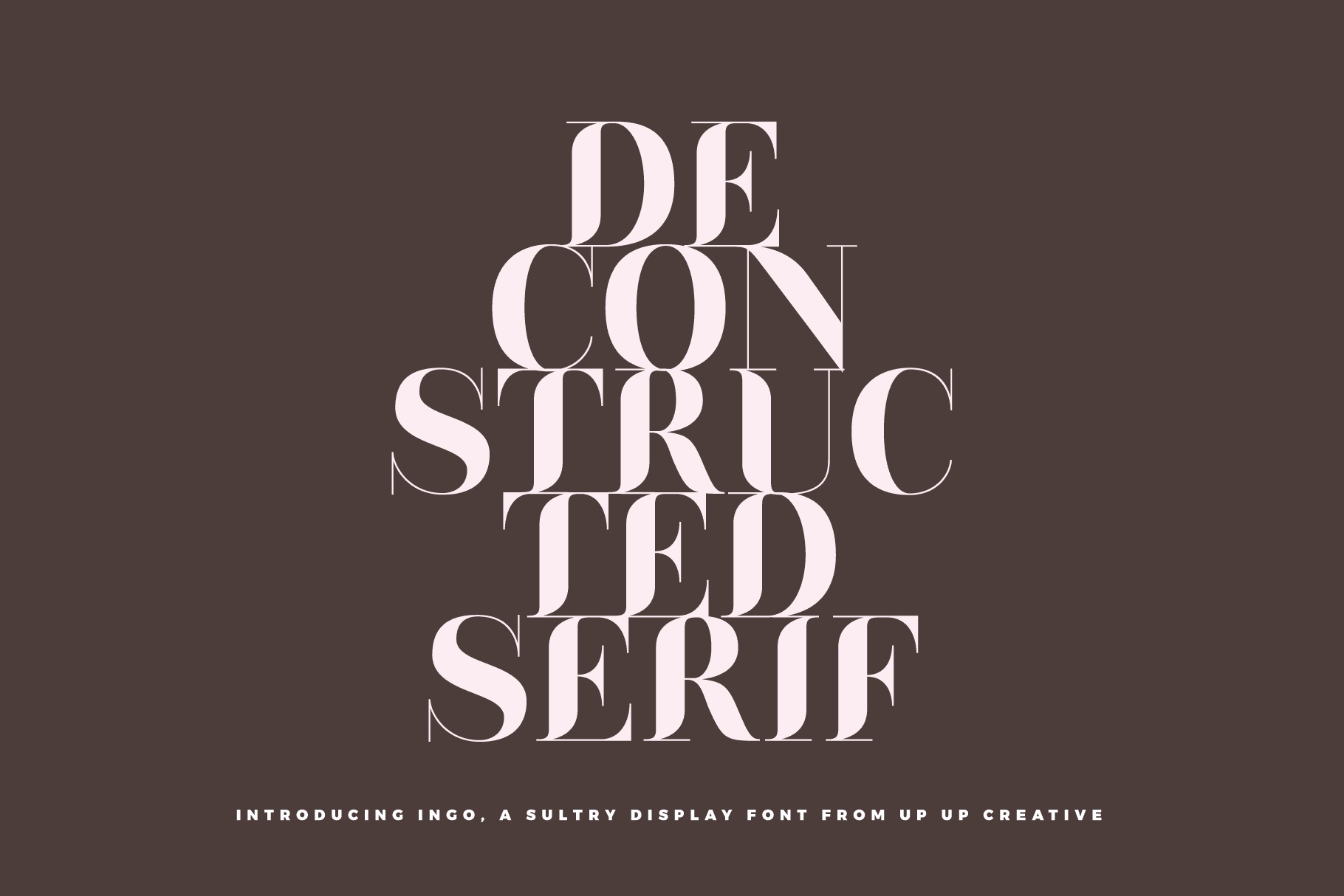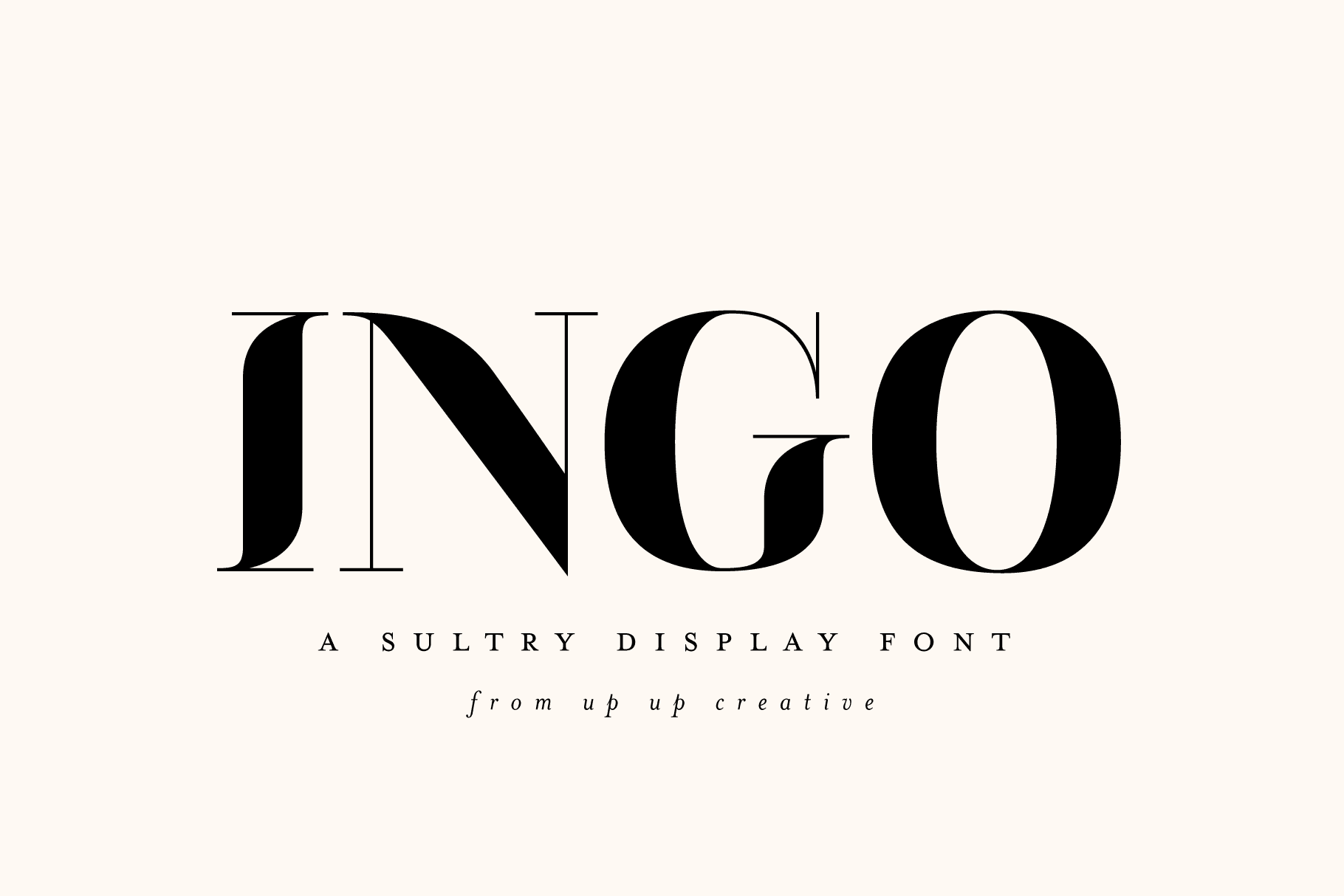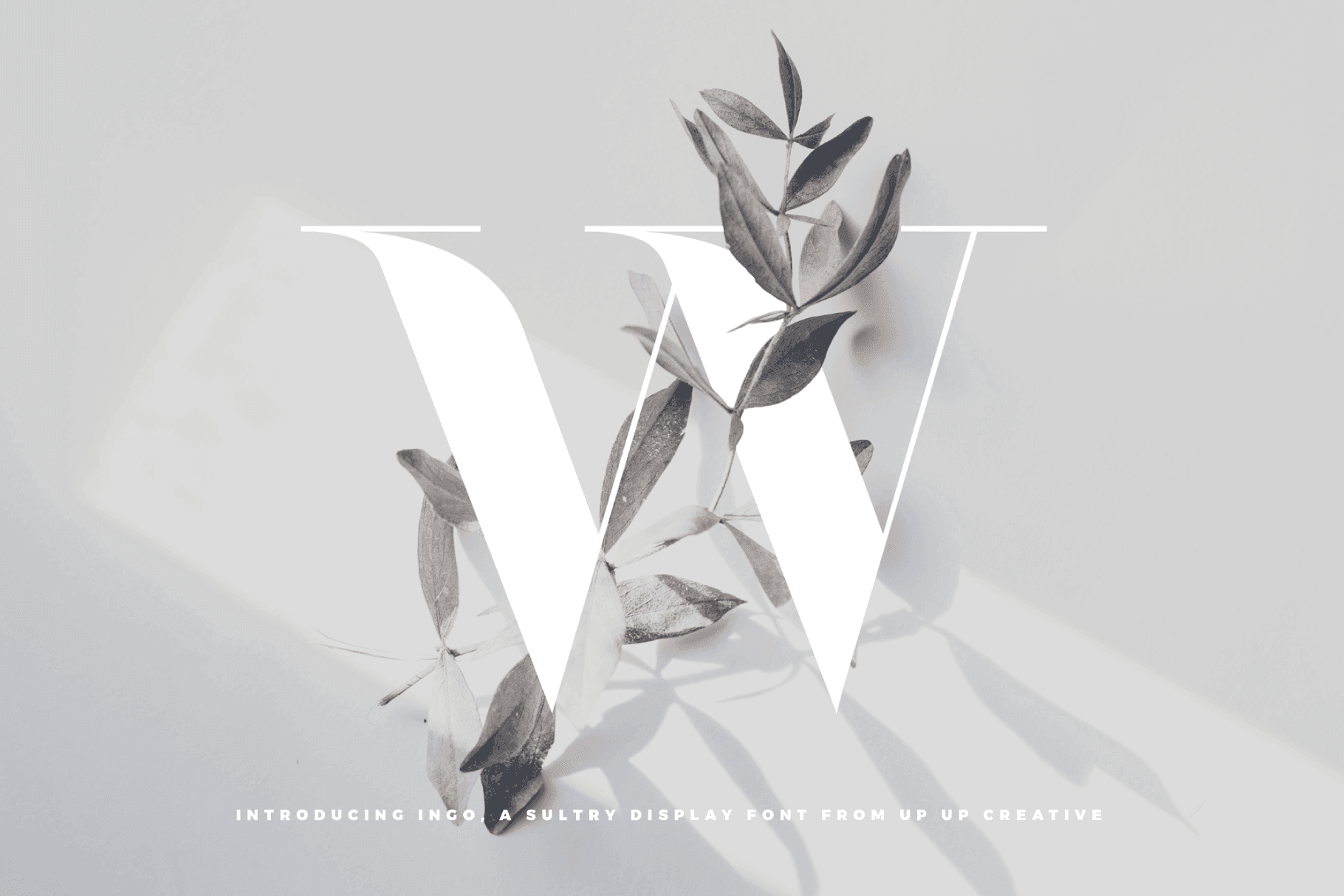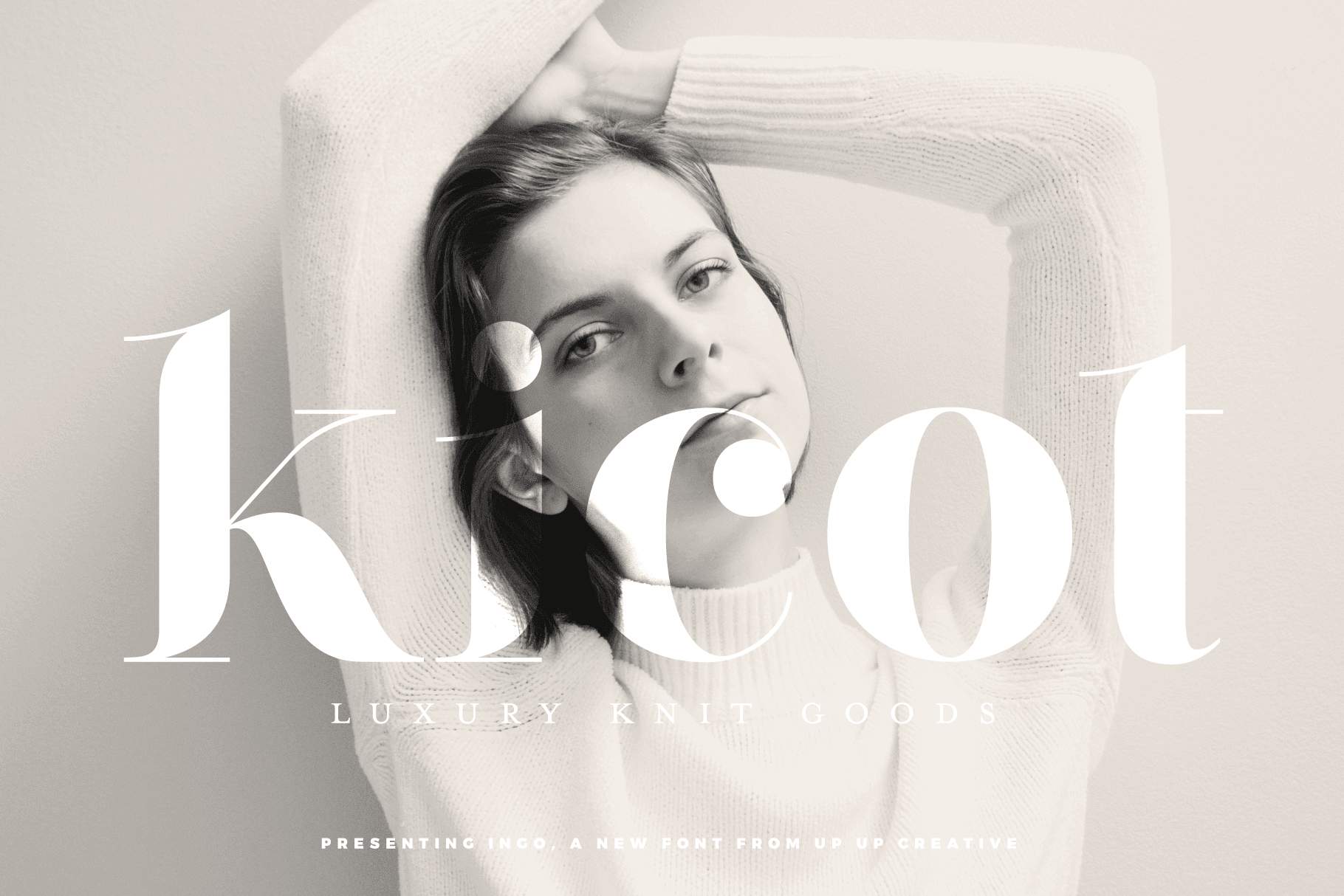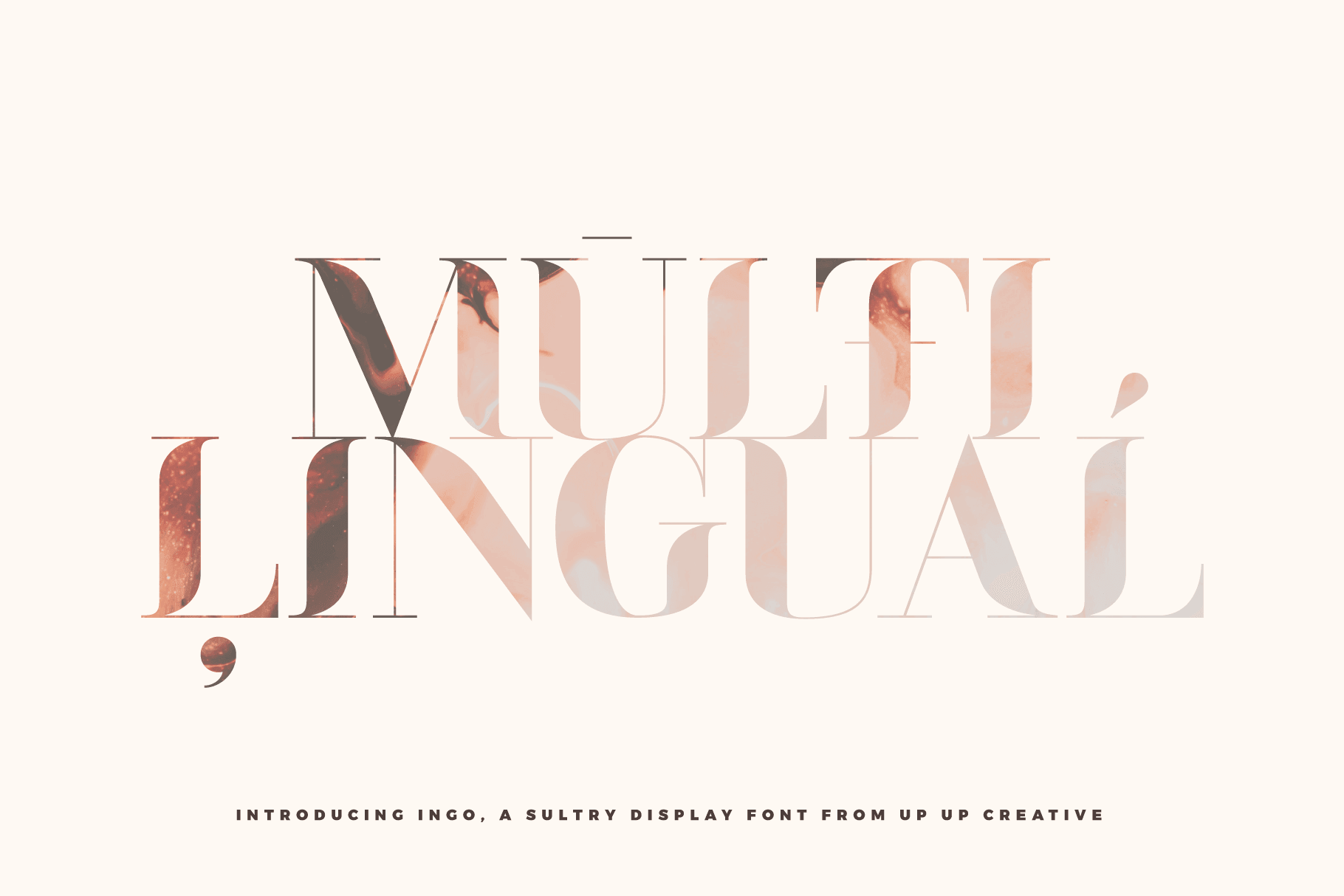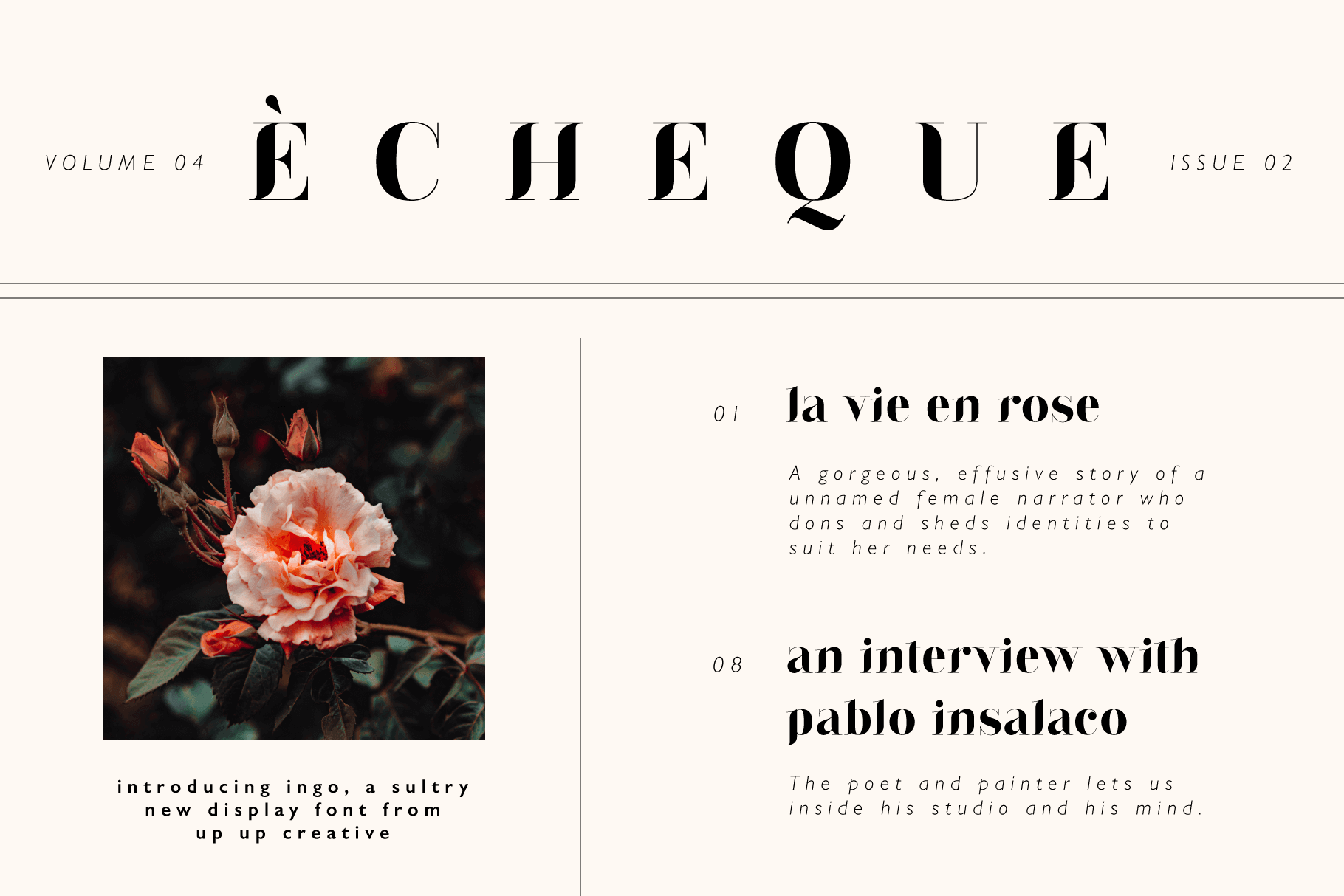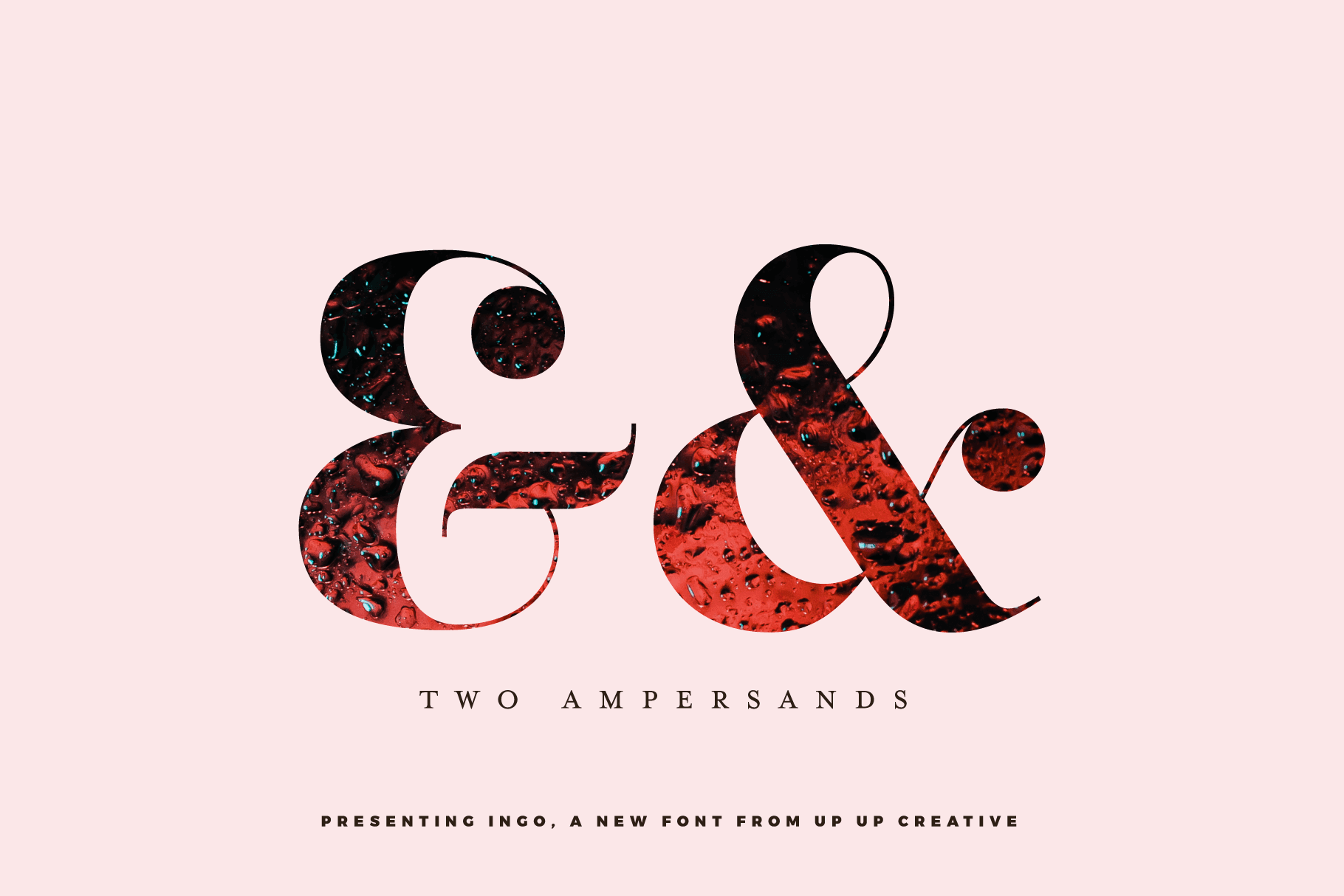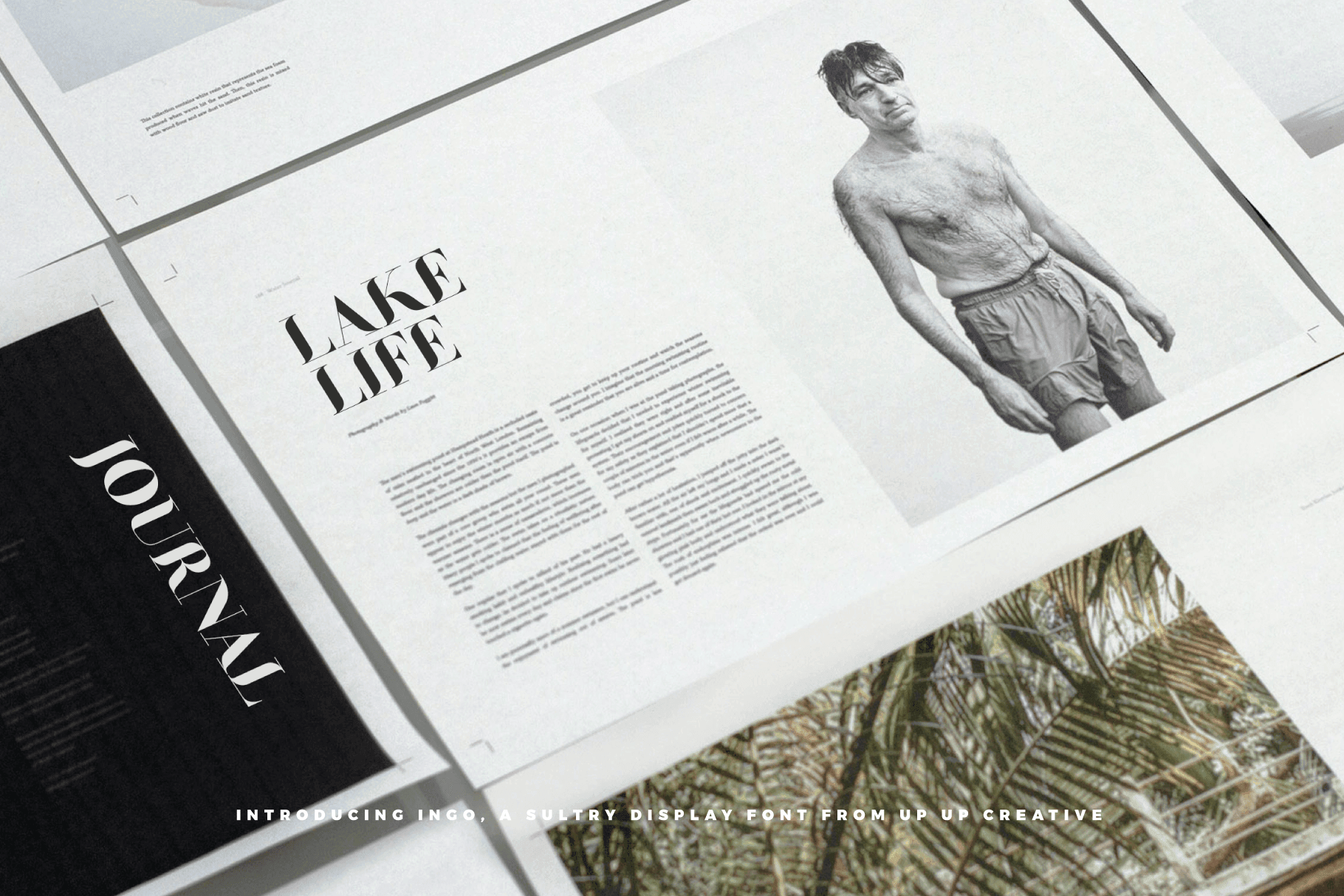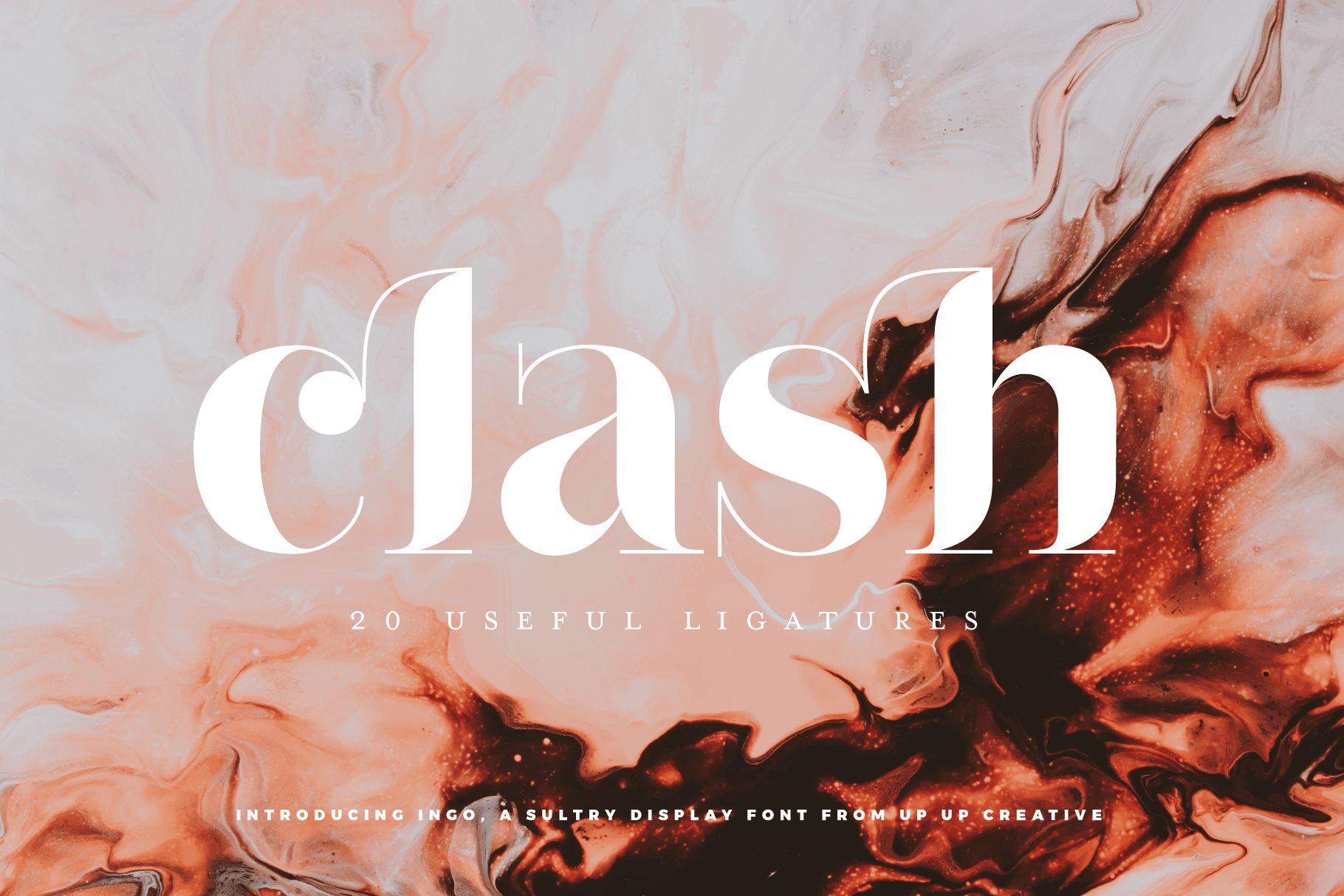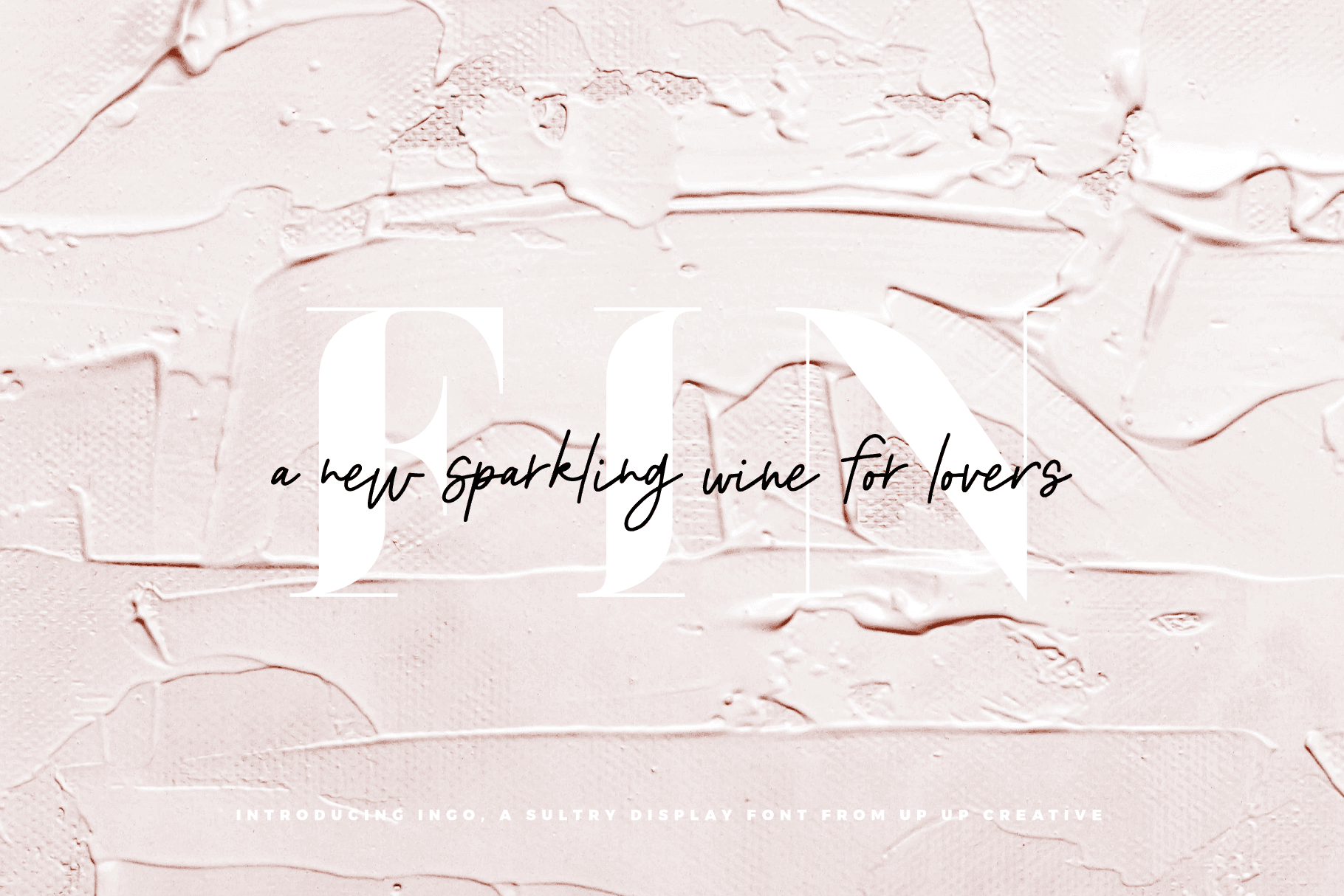
Ingo Display Font
Ingo is a modern display font with high contrast and bold curves. Its “deconstructed serif” style gives it a chic, curvaceous look that is a bit experimental and still highly readable. Ingo is perfect for headlines, editorial design, monograms, branding, logos, poster design, and more.
Ingo includes the following OpenType features:
- character variants
- standard and discretionary ligatures
- localized forms (multi-language and multi-currency support)
- ordinals and superscripts
Includes 18 ligatures
- Includes 444 glyphs
- 1 Weight, 1 Style